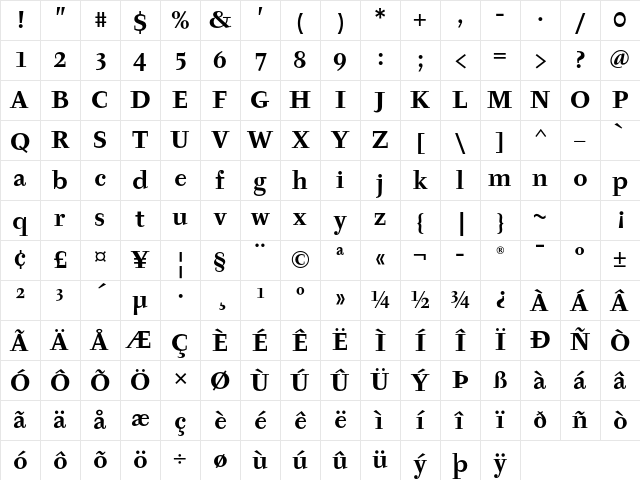
Tyfa ITC Std Bold
Designer: Frantisek Storm and Josef Tyfa
Design Context for Tyfa ITC Std
Tyfa ITC Std is a composed and adaptable typeface that performs quietly and consistently across a wide range of design contexts. Its bold stroke weight gives it real presence on the page.